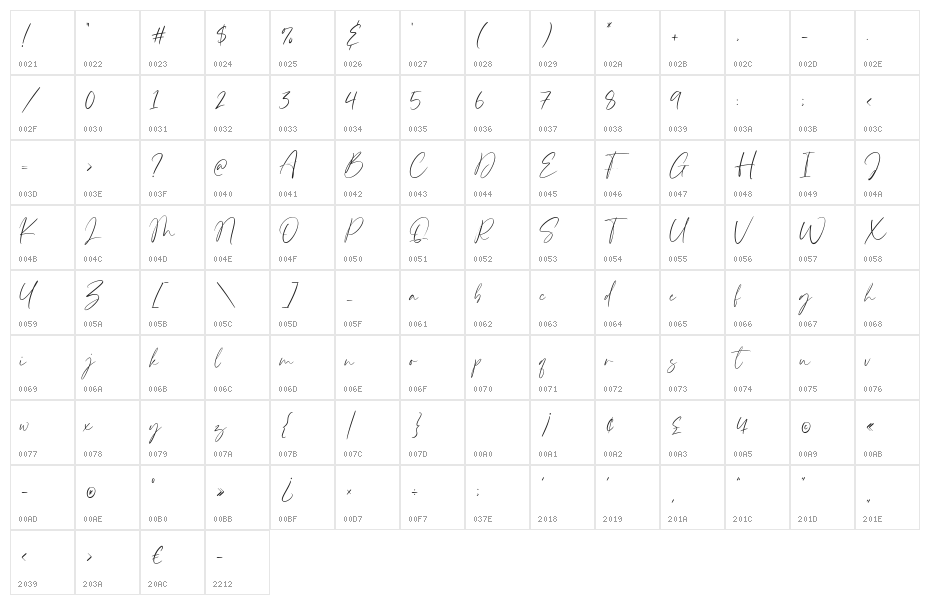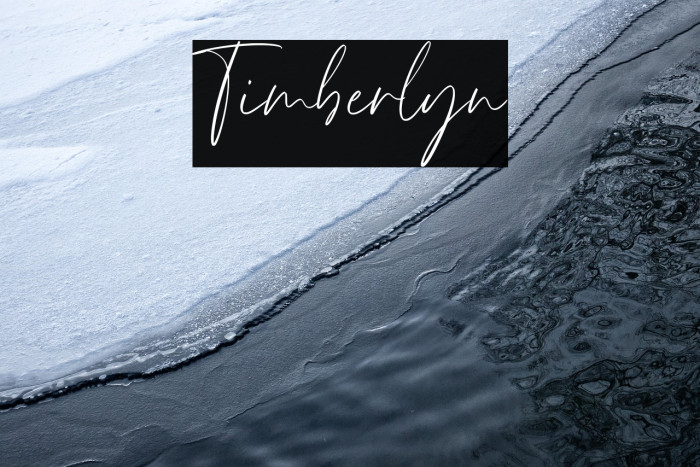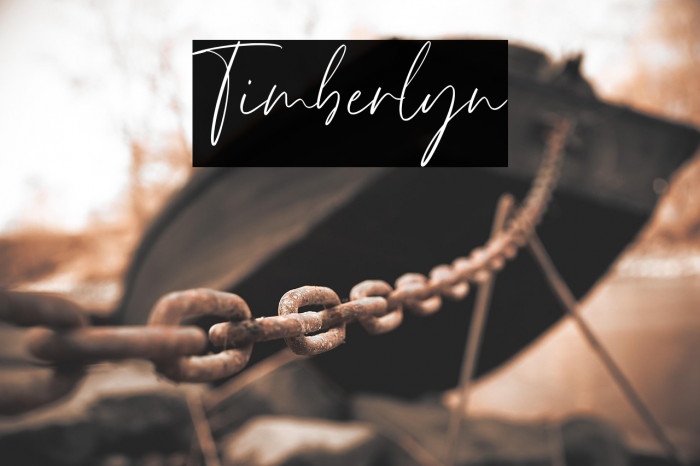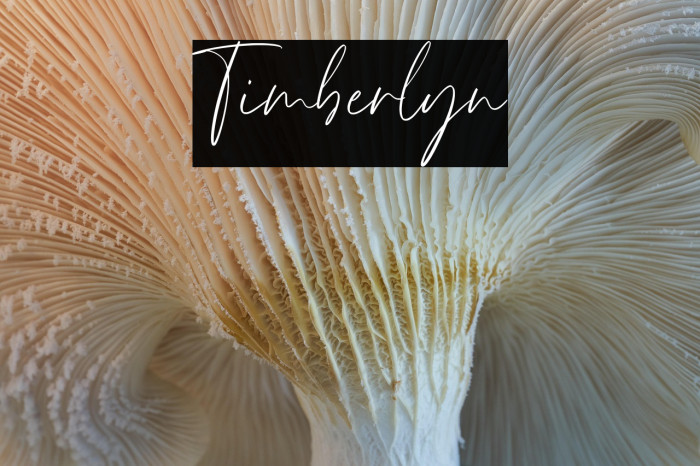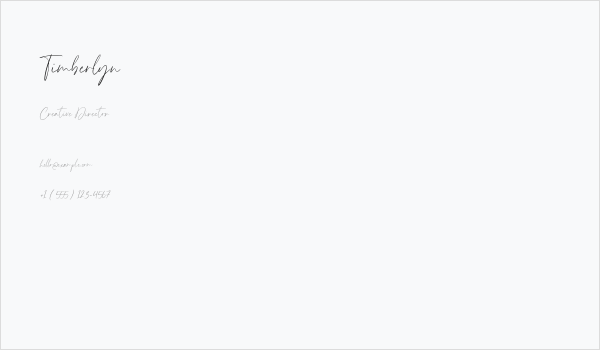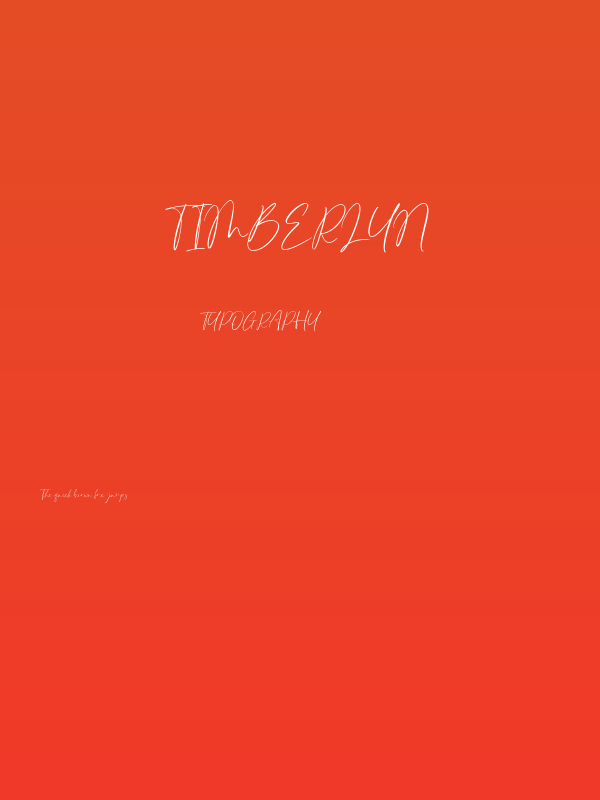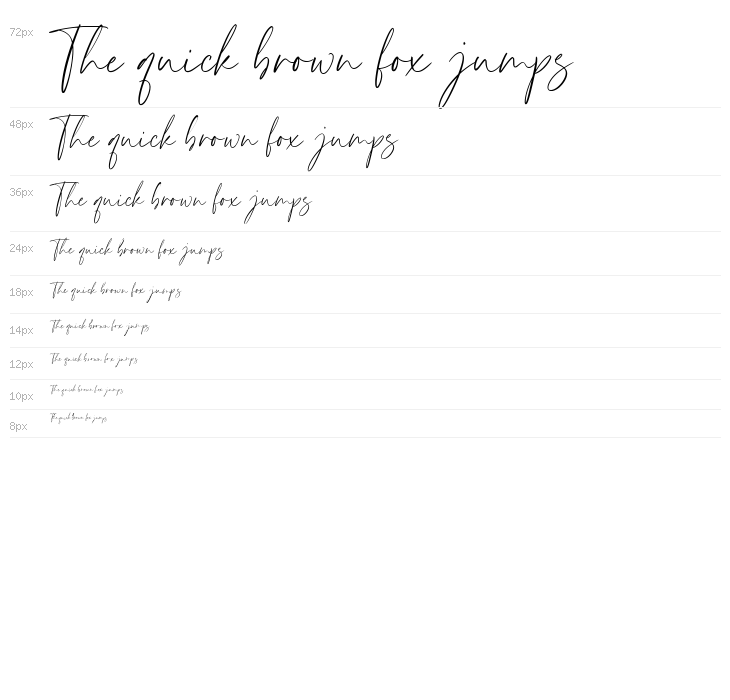
Timberlyn Font
Timberlyn Description
A flowing, elegant script font with a handwritten style, featuring smooth curves and a natural, personal touch.
| Use Case | Logos, Invitations, Personal notes |
| Proposed Projects | Wedding invitations, personal branding, greeting cards. |